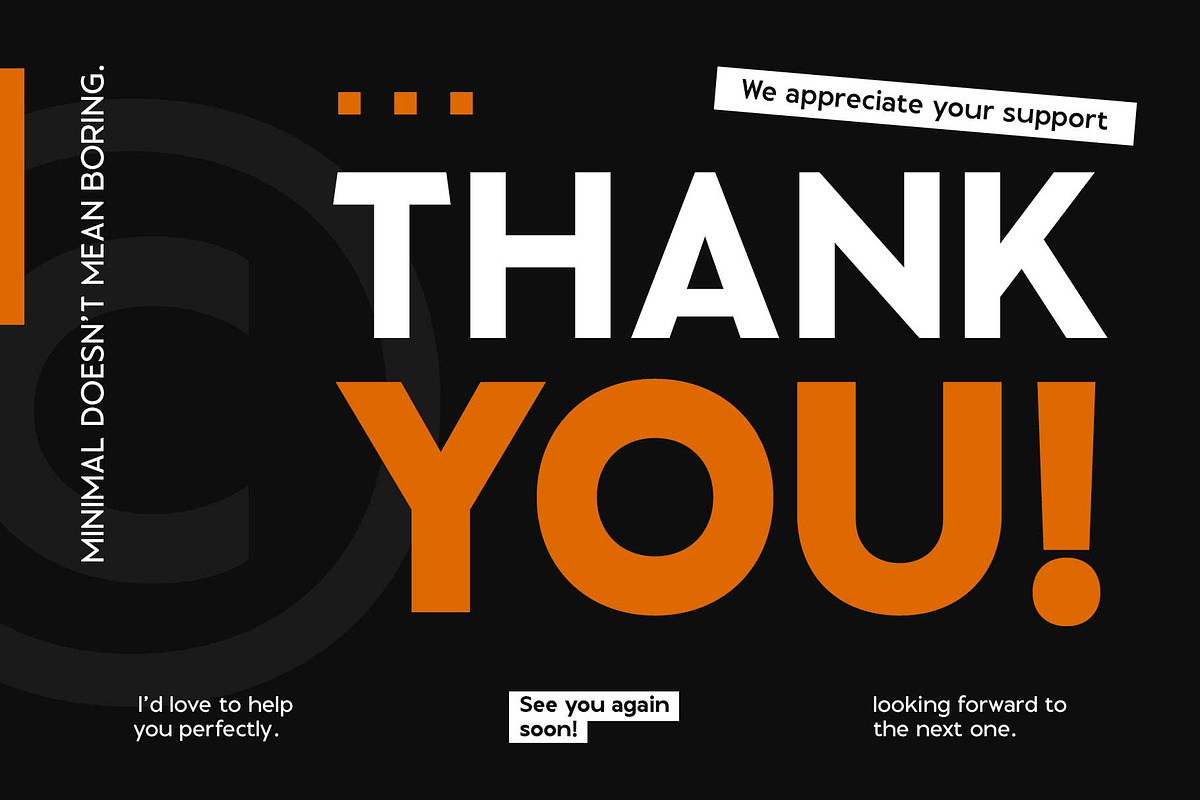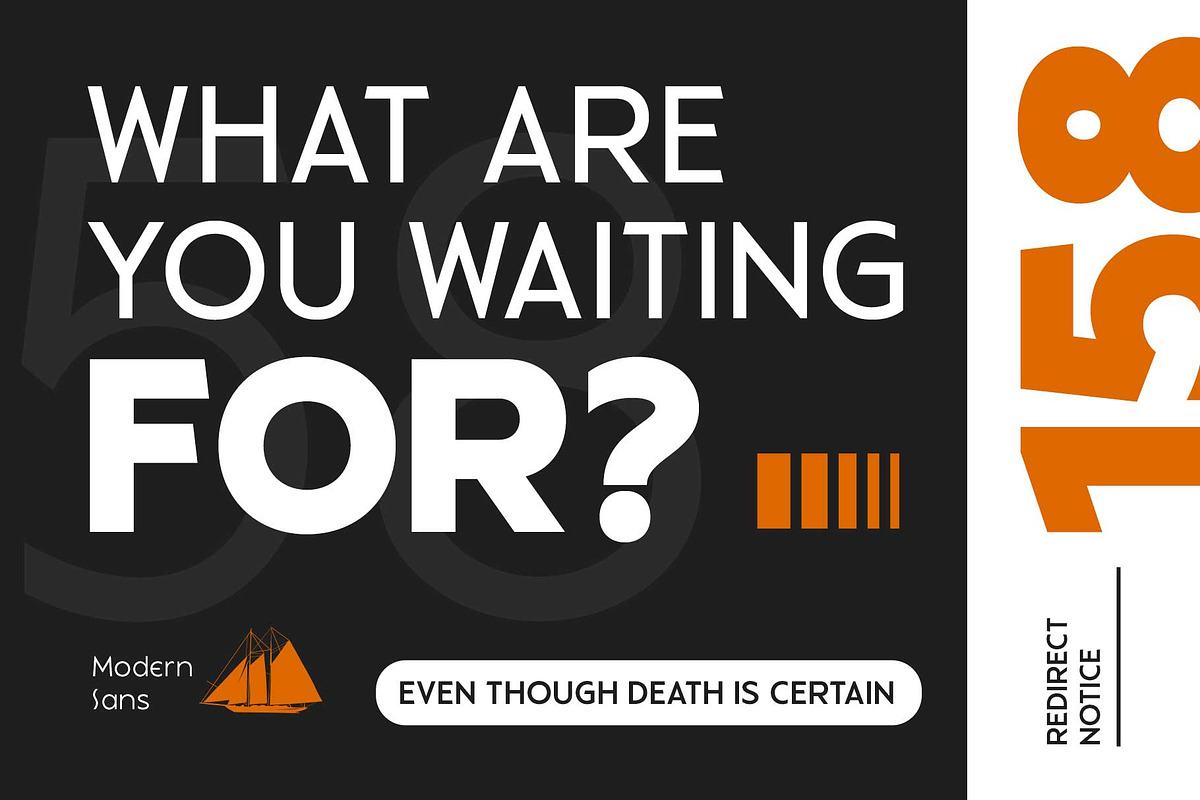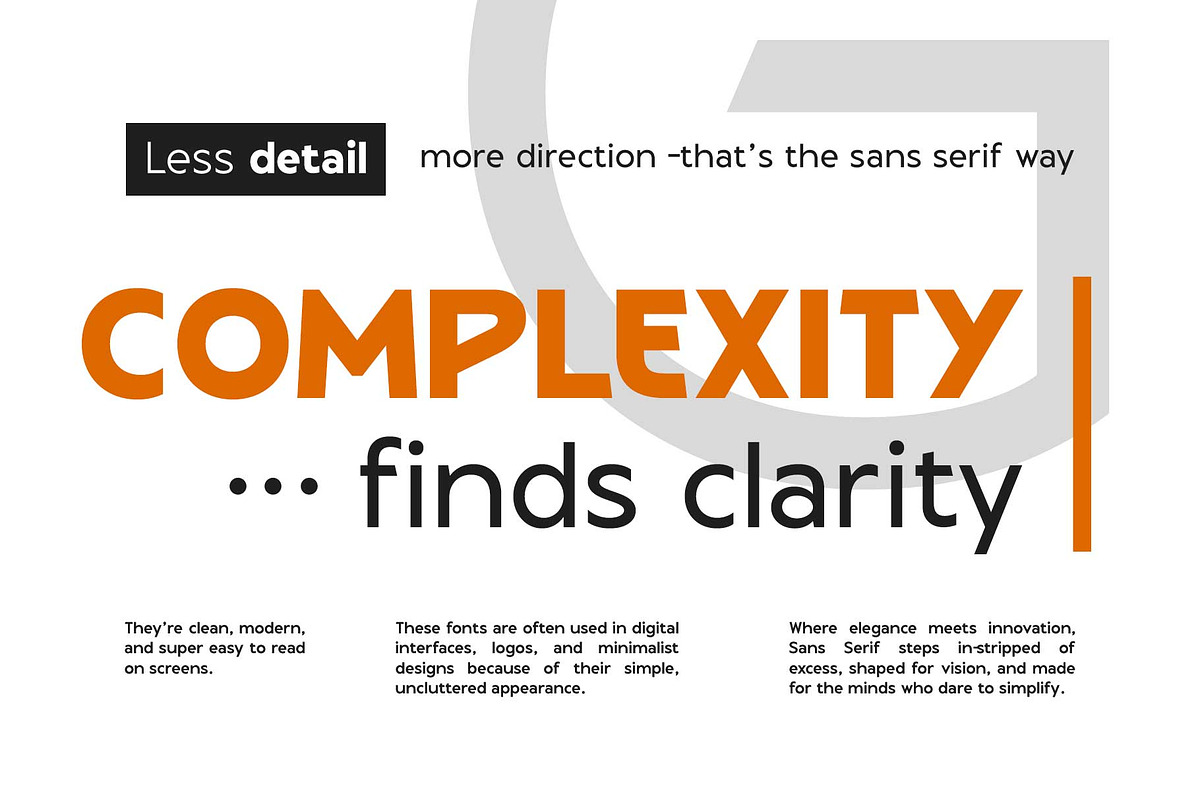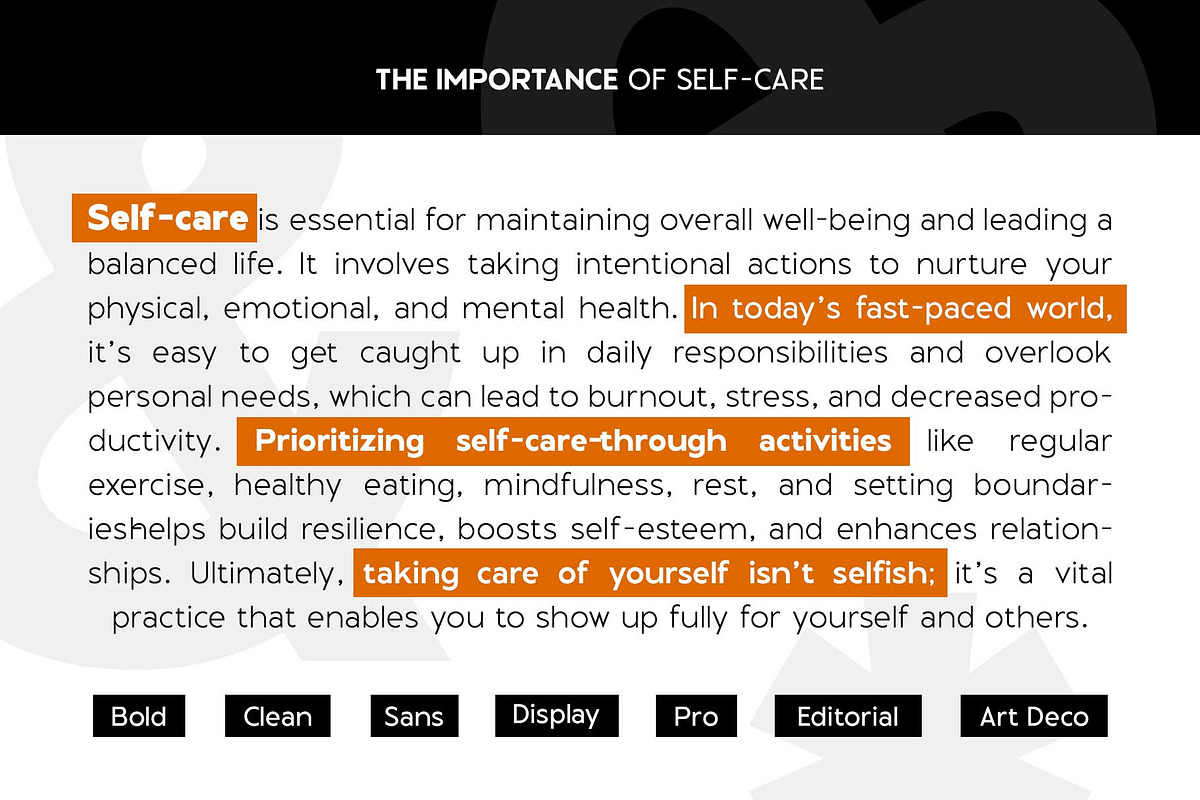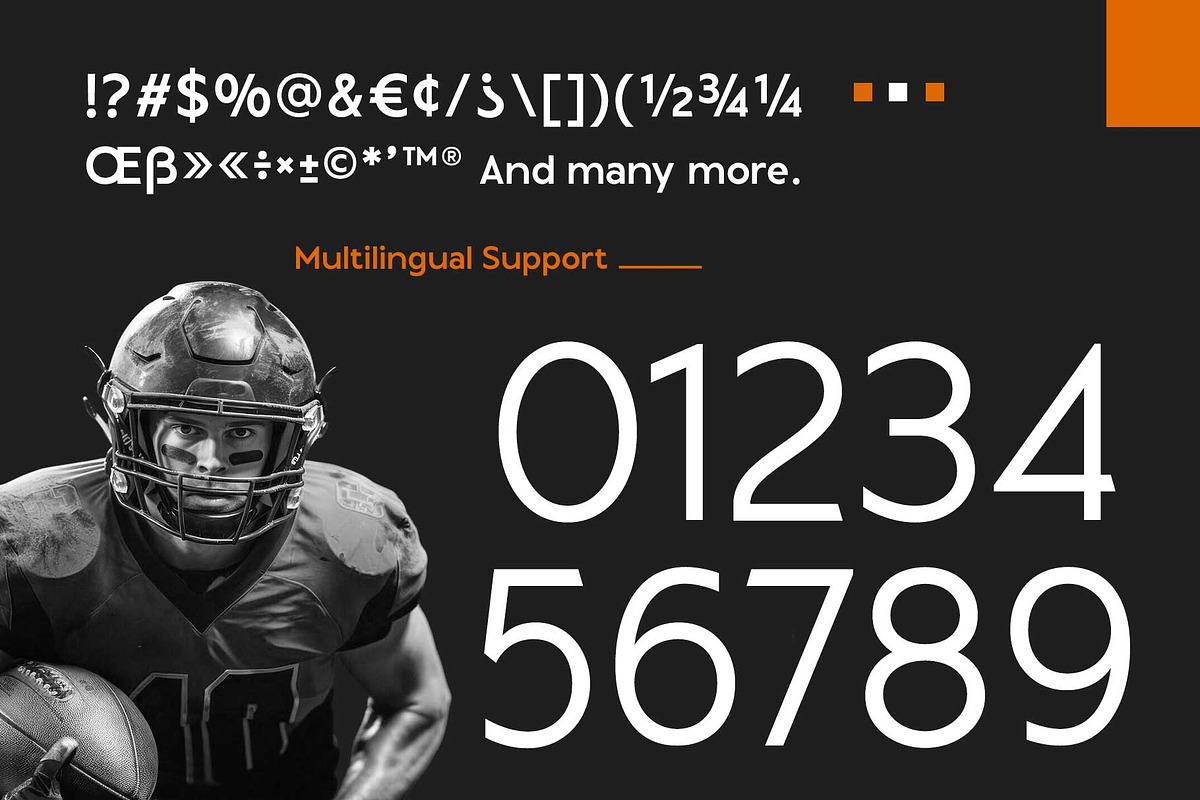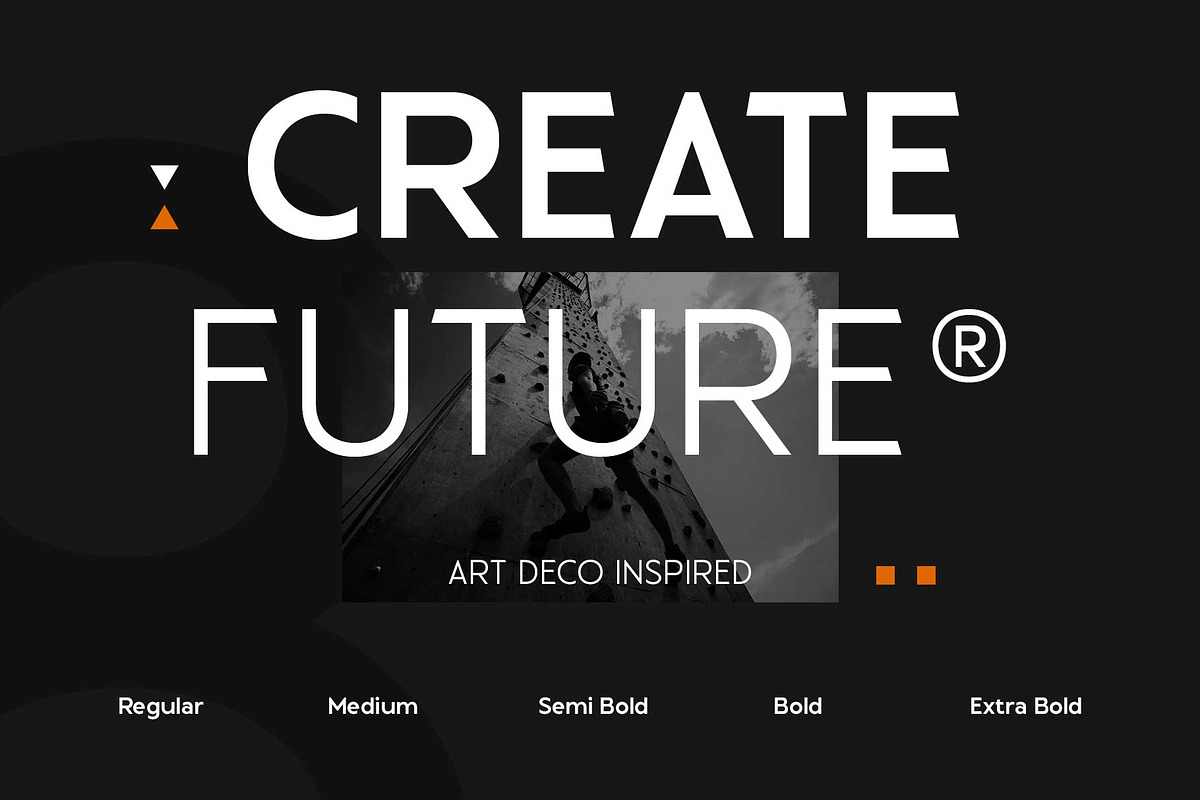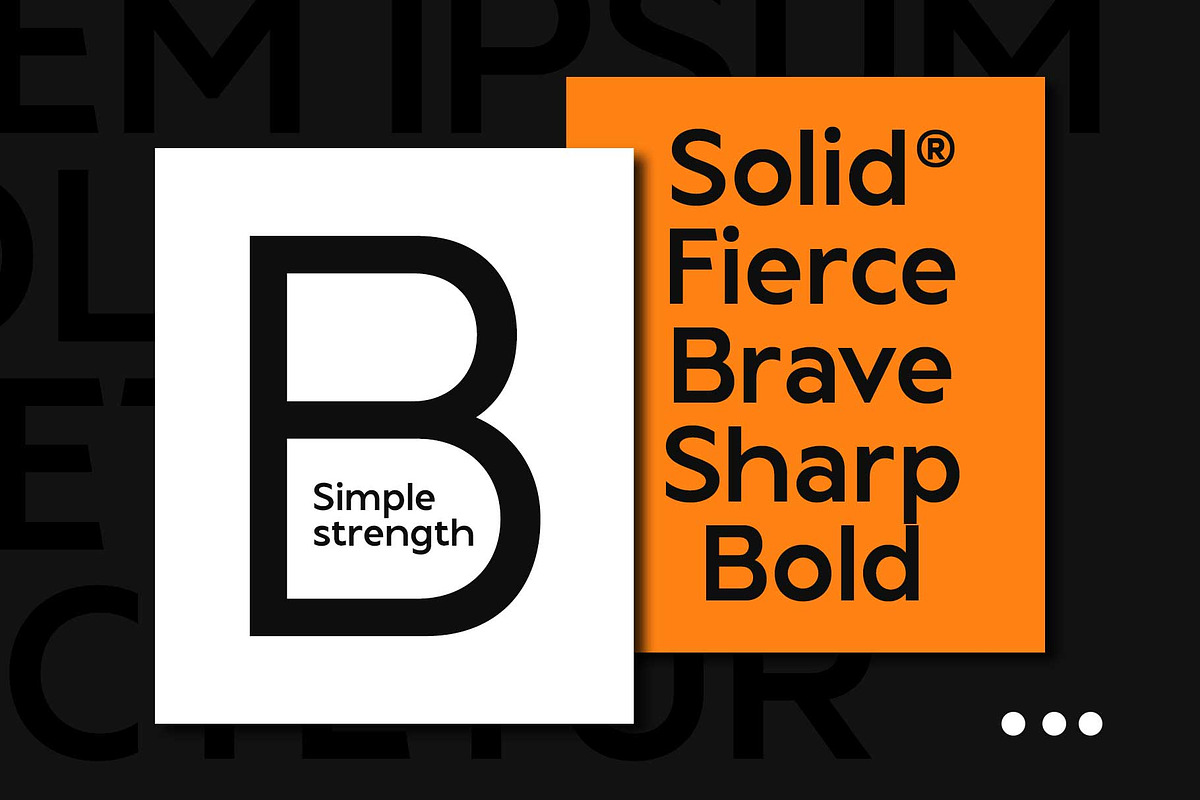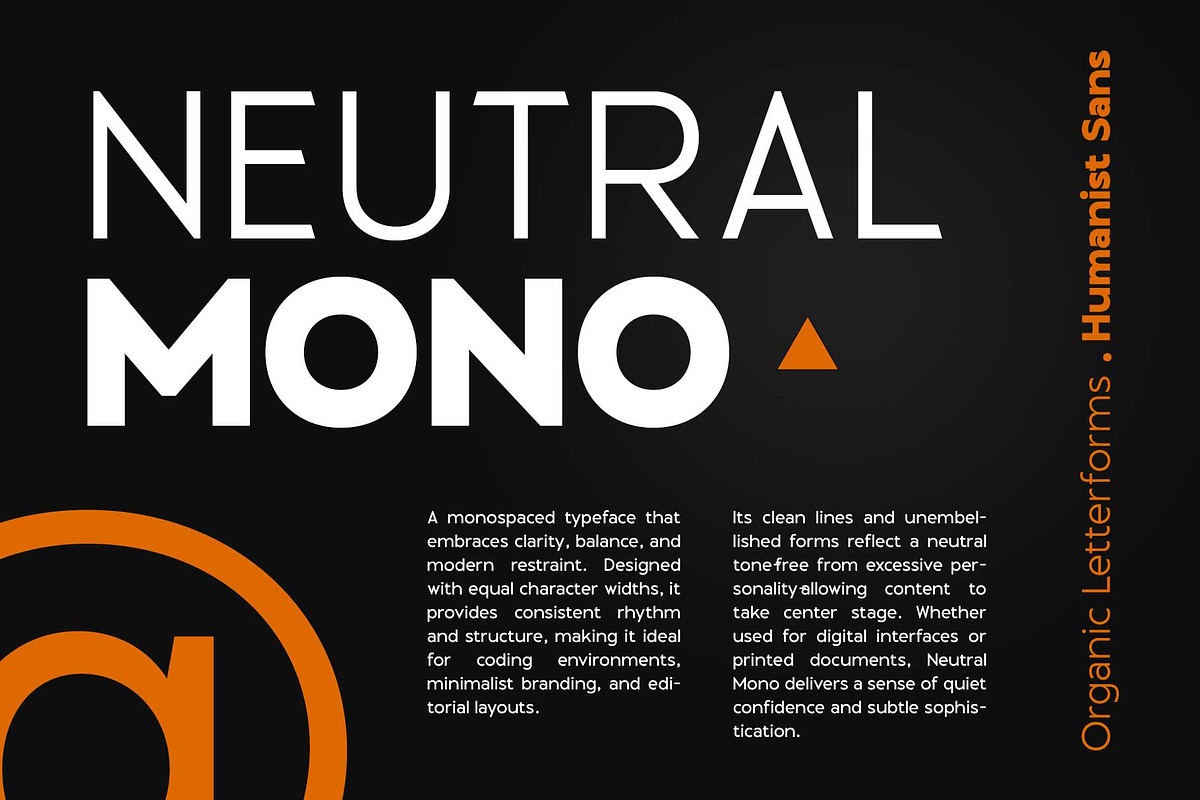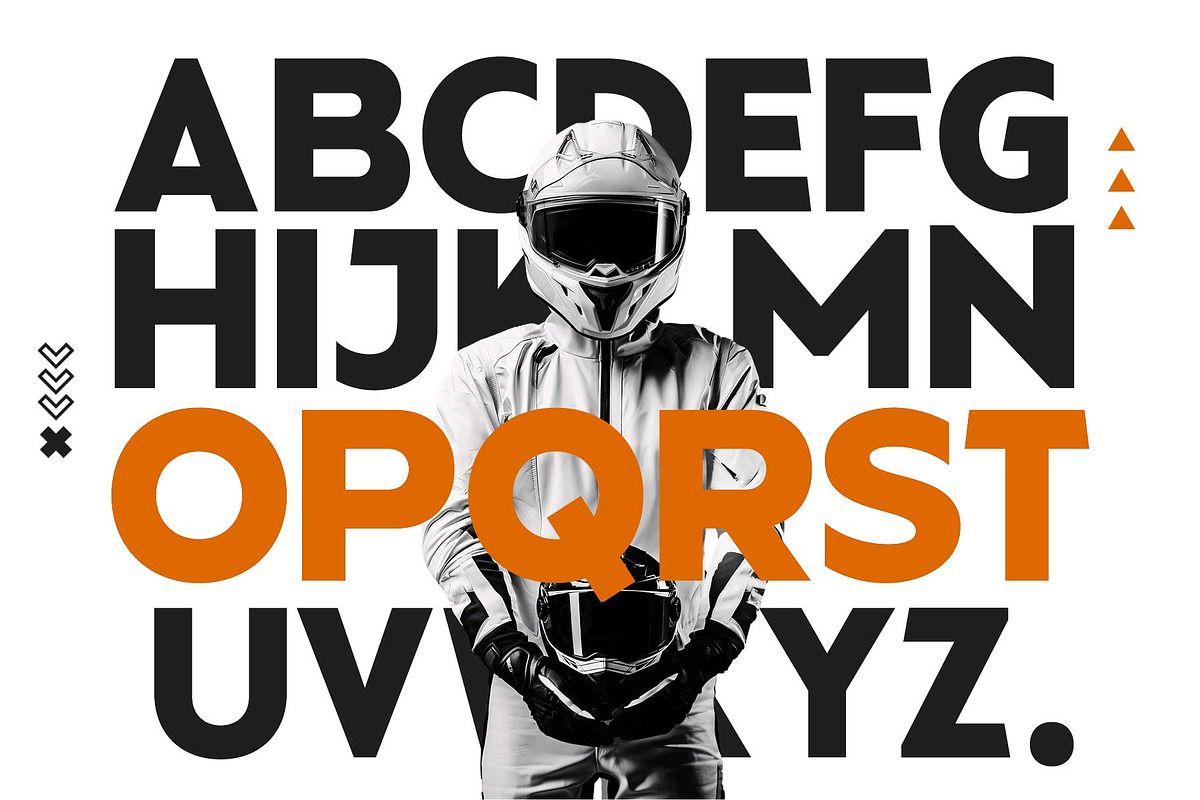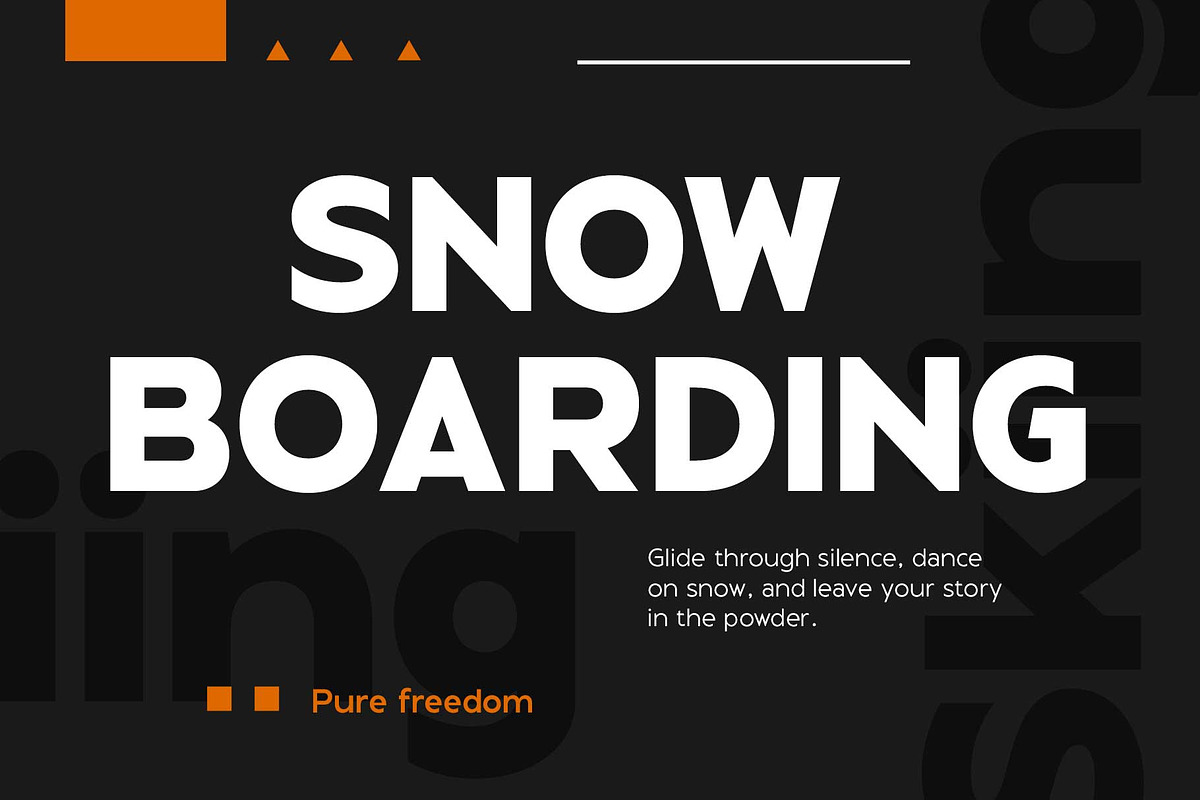
Maurico - Elegant Sans
Maurico is a sans serif font inspired by the geometric elegance of Art Deco, blended with a modern aesthetic. Its versatile and sophisticated design features sharp edges and clean, geometric letterforms, giving it a stylish, contemporary, and slightly futuristic feel.
This font family includes six weights, from Regular to ExtraBold, making it perfect for a wide range of design projects—whether you're working on magazines, posters, flyers, logos, branding, websites, editorial layouts, or motion graphics.
- 6 weights: Regular to ExtraBold
- Numbers & symbols
- Punctuation marks
- Stylistic alternates